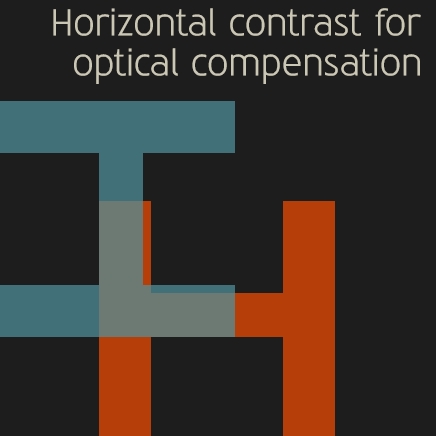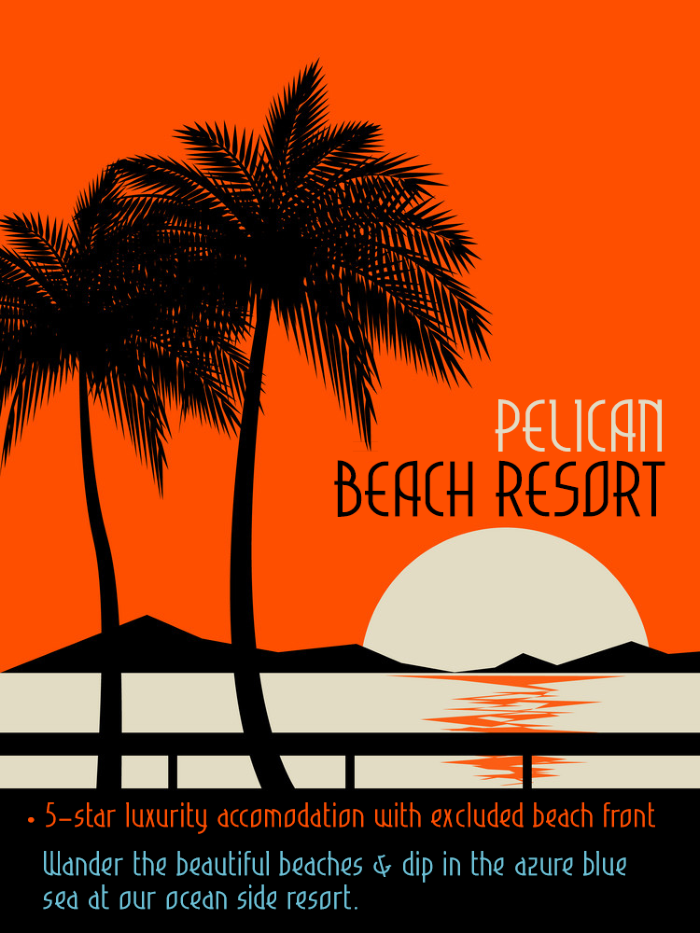
• BEACH RESORT — 1920s Art-Deco style
Beach Resort is a tall geometric display sans inspired by the Art-Deco aesthetics.
It's condensed style makes up for a rather tall and narrow looking letter concept. The design is further characterized by this distinct asymmetric curve geometry. A tiny touch of stress was added on the vertical axis to create this gentle stroke contrast. The stressed weight of the horizontals automatically compensating it's optical correction issue.
I especially love the little added serifs that come out of the body of the letter
...And much more other little details, as usual!